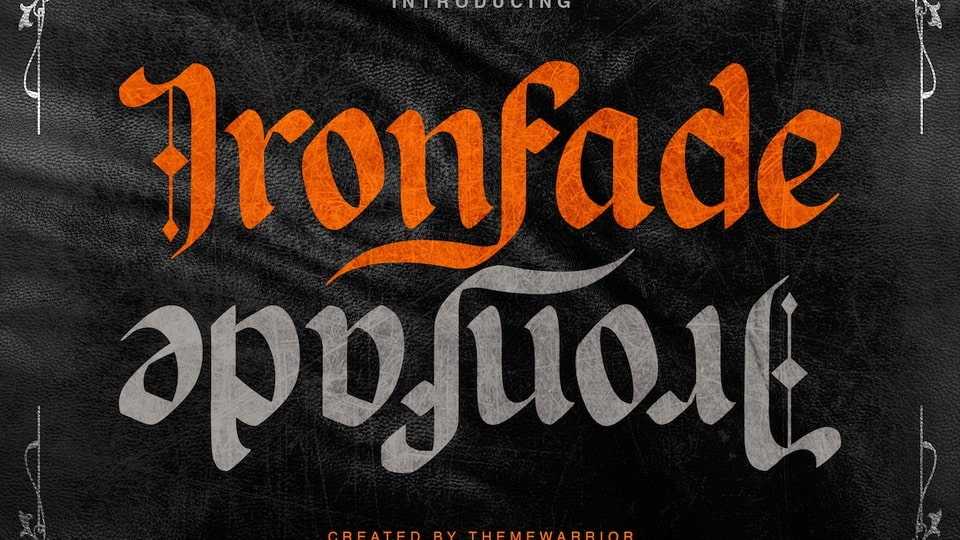
Download Ironfade font, a blackletter typeface with a gothic metal style. The font is perfect to be use on various artwork including motorcycle logo or badge designs, metal band logo and so on.
Designer: ThemeWarrior